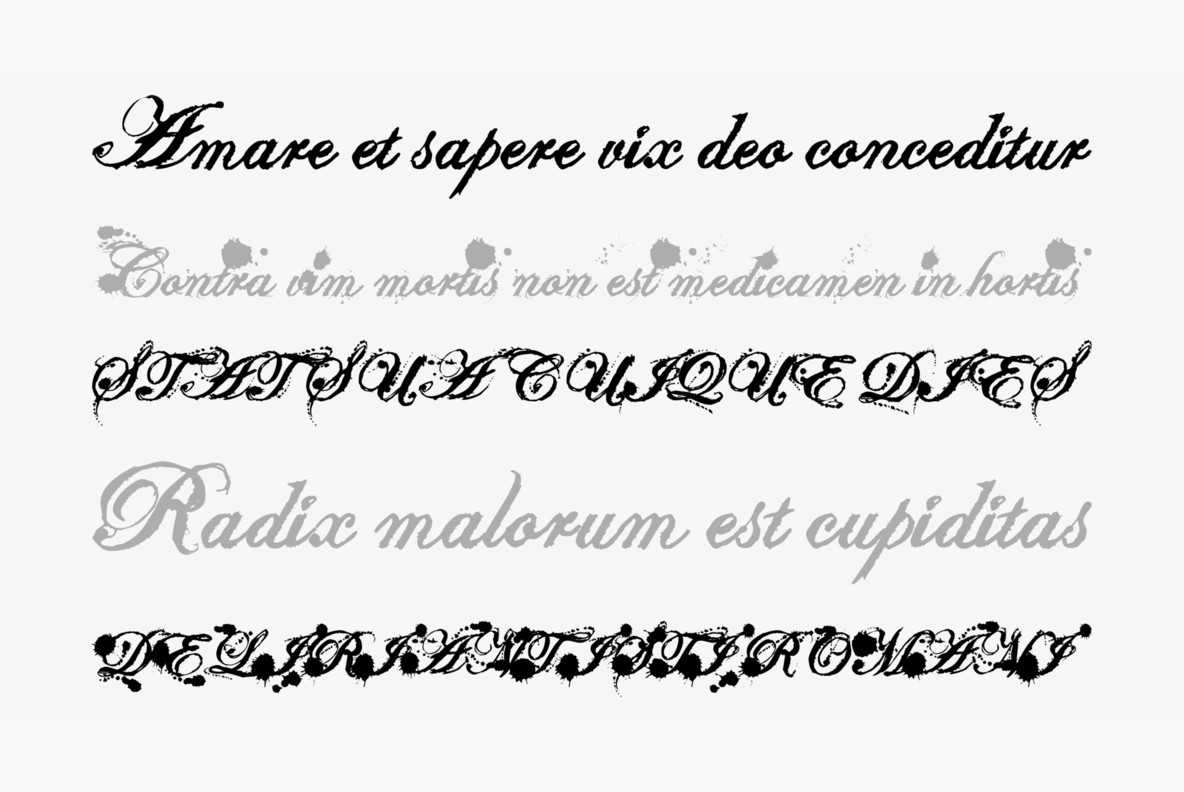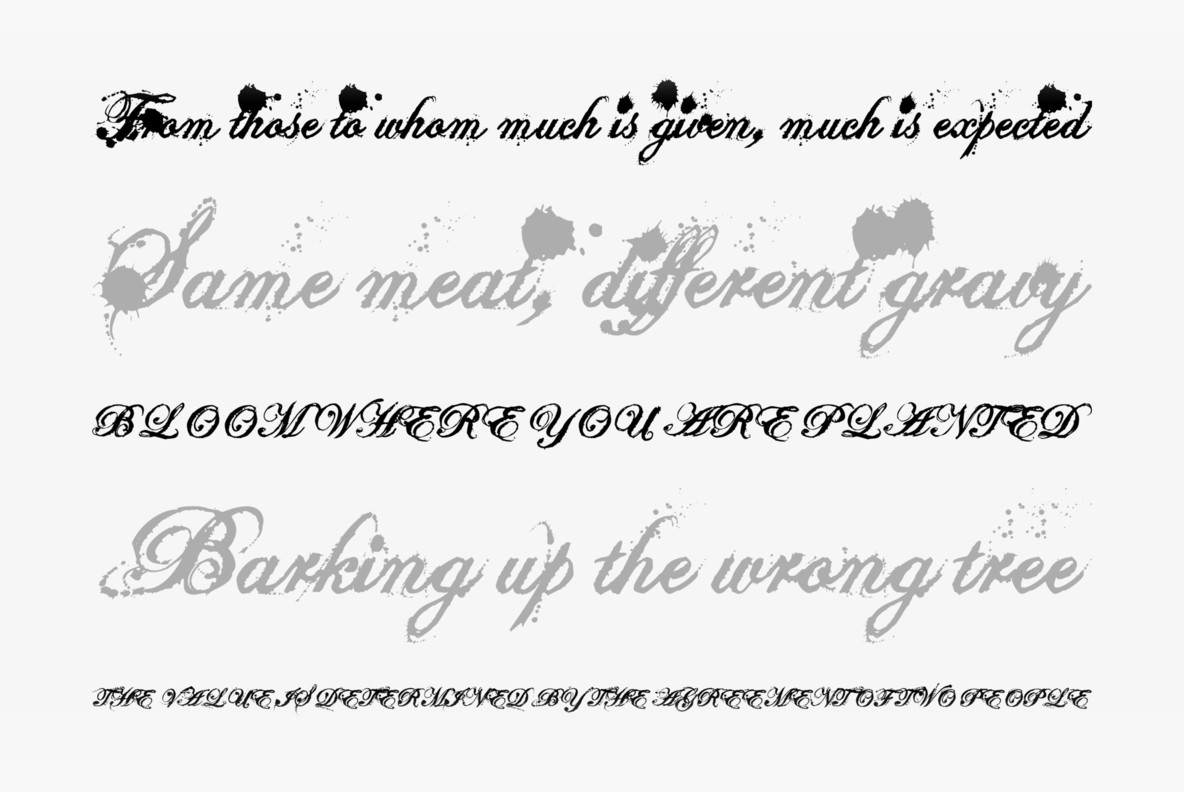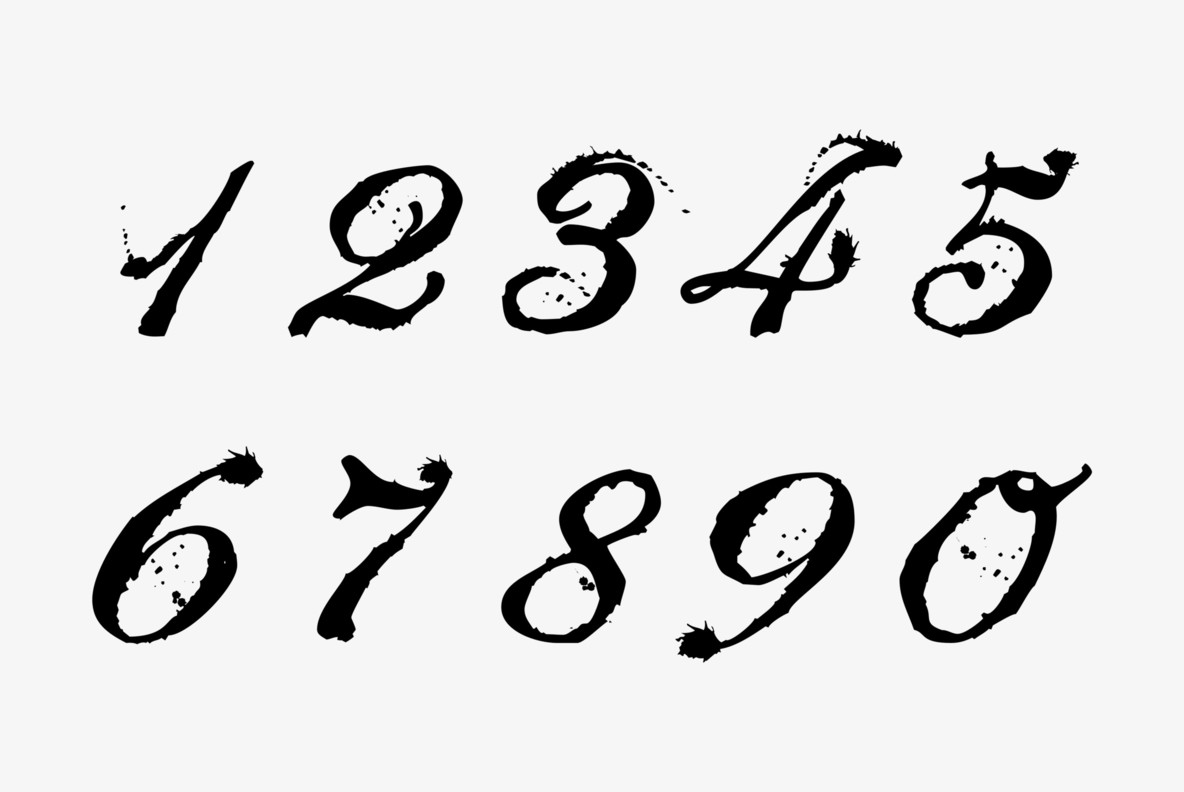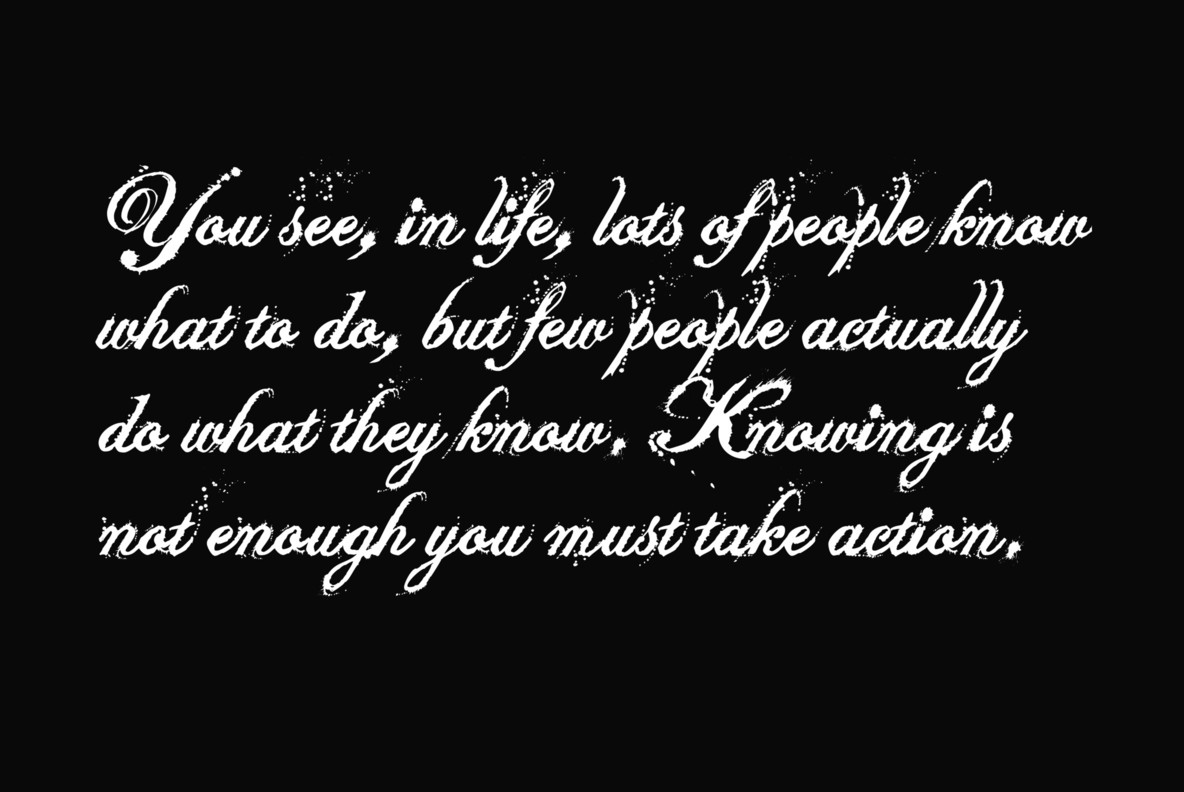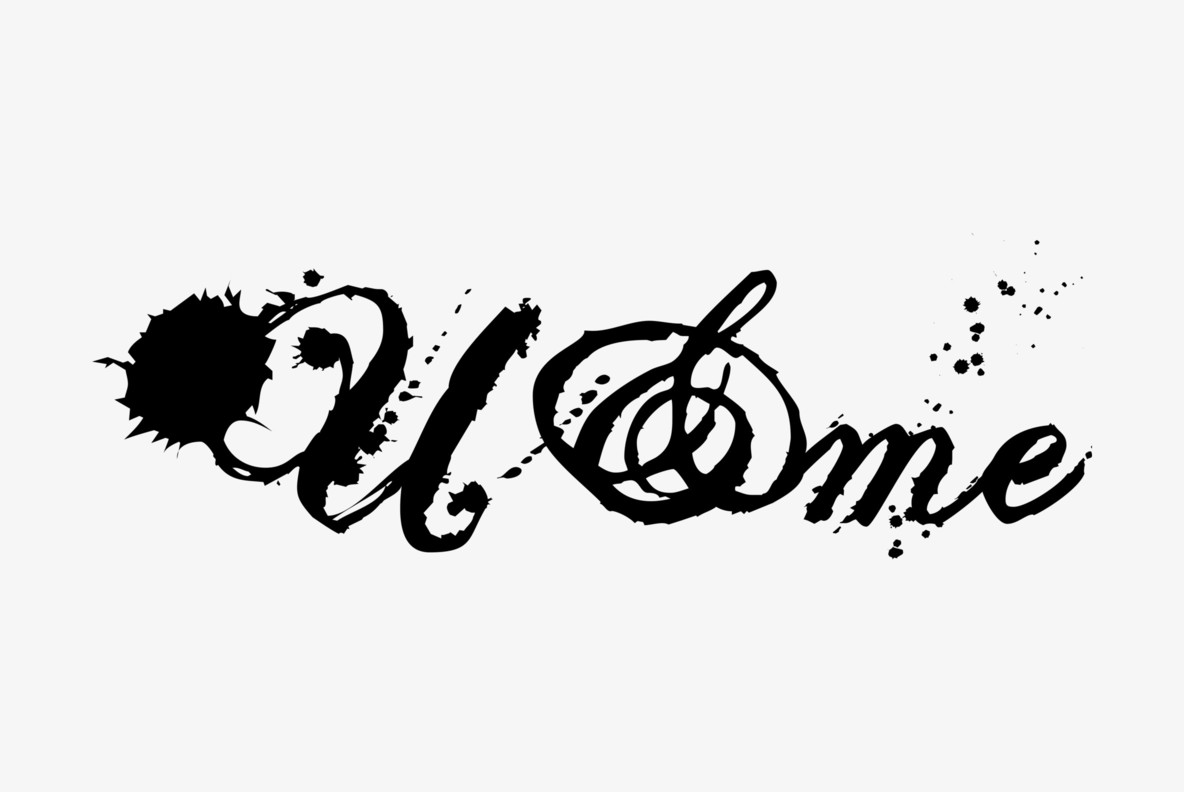
Eddy Font
"Eddy" is short for my dirty version of an Edwardian Script. I give you three versions, Big Splats, Splats and Rough. You should mix them for best results.